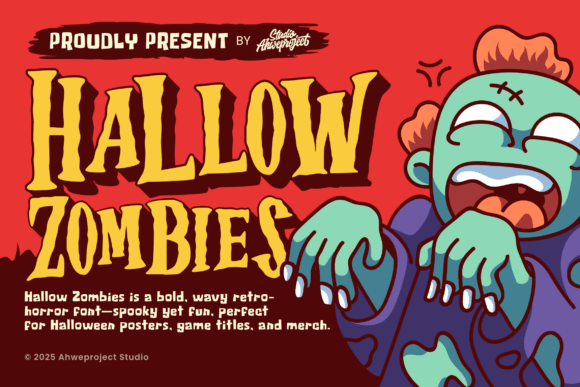
Hallow Zombies Font: The Ultimate Retro-Horror Display Font for Spooky yet Fun Designs
Are you looking for a font that can add a touch of spookiness and fun to your designs? Look no further than Hallow Zombies Font. This bold, wavy retro-horror display font is perfect for creating attention-grabbing designs for Halloween posters, game titles, logos, stickers, packaging, YouTube thumbnails, party invites, and merchandise.
What is Hallow Zombies Font?
Hallow Zombies Font is a unique and eye-catching font that features jagged, cartoon-zombie letterforms. Its heavy weight ensures maximum impact and clear readability from a distance, making it perfect for designs that need to stand out. The font’s wavy and irregular shape adds a touch of playfulness and spookiness, making it ideal for creators and brands who want to create a memorable and fun look.
Key Features of Hallow Zombies Font
- Bold and Wavy Design: Hallow Zombies Font features a bold and wavy design that is sure to grab attention.
- Retro-Horror Style: The font’s retro-horror style is perfect for creating spooky yet fun designs.
- Jagged Letterforms: The font’s jagged letterforms add a touch of playfulness and spookiness.
- Heavy Weight: The font’s heavy weight ensures maximum impact and clear readability from a distance.
- Versatile: Hallow Zombies Font is perfect for a variety of design projects, including Halloween posters, game titles, logos, stickers, packaging, YouTube thumbnails, party invites, and merchandise.
Uses of Hallow Zombies Font
Hallow Zombies Font is a versatile font that can be used for a variety of design projects. Here are some of the most popular uses of the font:
- Halloween Posters: The font is perfect for creating spooky and fun Halloween posters.
- Game Titles: The font’s bold and wavy design makes it perfect for game titles that need to stand out.
- Logos: Hallow Zombies Font can be used to create unique and memorable logos for businesses and brands.
- Stickers and Packaging: The font’s playful and spooky design makes it perfect for stickers and packaging.
- YouTube Thumbnails: The font’s bold and attention-grabbing design makes it perfect for YouTube thumbnails.
- Party Invites: Hallow Zombies Font can be used to create spooky and fun party invites.
- Merchandise: The font’s unique and playful design makes it perfect for merchandise such as t-shirts, hats, and mugs.
Why Choose Hallow Zombies Font?
There are many reasons why you should choose Hallow Zombies Font for your design projects. Here are a few:
- Unique Design: Hallow Zombies Font features a unique and eye-catching design that is sure to grab attention.
- Versatile: The font is perfect for a variety of design projects, making it a great addition to any design library.
- Easy to Read: The font’s heavy weight and clear design make it easy to read from a distance.
- Playful and Spooky: The font’s playful and spooky design makes it perfect for creating fun and memorable designs.
Tips for Using Hallow Zombies Font
Here are a few tips for using Hallow Zombies Font:
- Use it for Headlines: Hallow Zombies Font is perfect for headlines and titles, where its bold and attention-grabbing design can shine.
- Pair it with Other Fonts: The font can be paired with other fonts to create a unique and memorable design.
- Experiment with Colors: The font’s design looks great in a variety of colors, so don’t be afraid to experiment.
- Use it for Limited Time Offers: The font’s playful and spooky design makes it perfect for limited time offers and promotions.
Hallow Zombies Font is a unique and eye-catching font that is perfect for creating spooky yet fun designs. Its bold and wavy design, jagged letterforms, and heavy weight make it perfect for a variety of design projects, including Halloween posters, game titles, logos, stickers, packaging, YouTube thumbnails, party invites, and merchandise. With its versatility, playfulness, and spookiness, Hallow Zombies Font is a great addition to any design library.